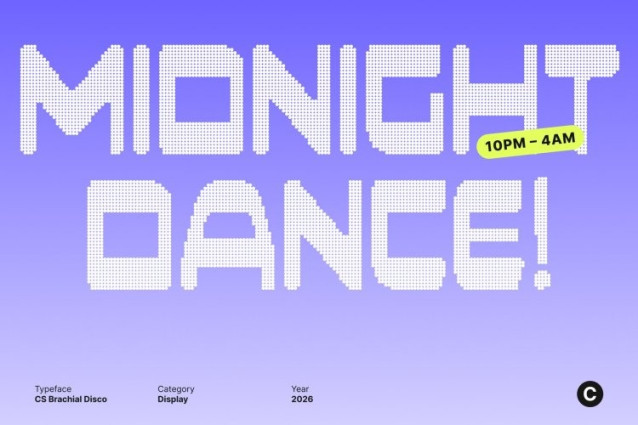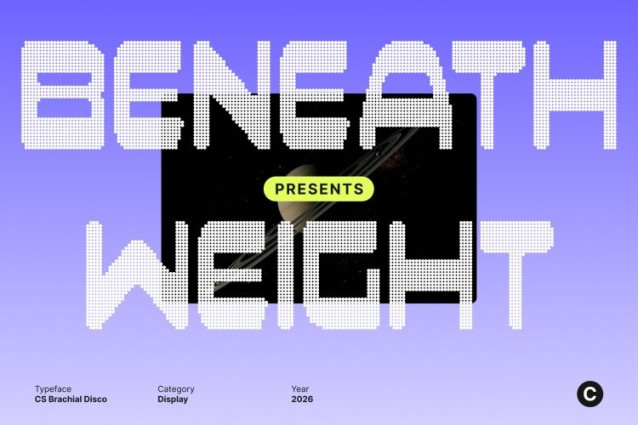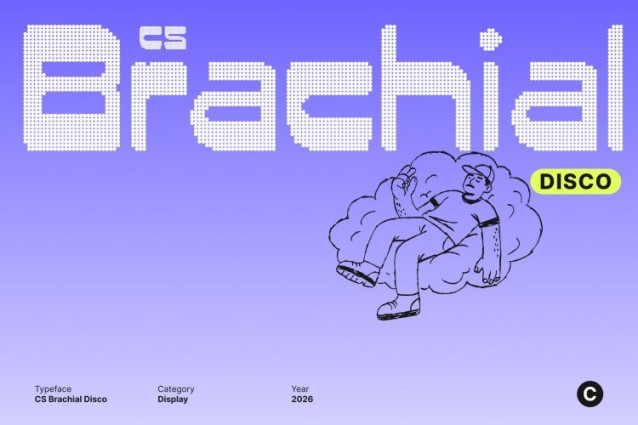
CS Brachial Disco Font
CS Brachial Disco Font This is an edgy futuristic sans serif font built for high-energy visuals and modern club culture. Featuring bold reverse contrast and sleek geometric construction, this typeface delivers a striking impact that feels experimental, digital, and ready for the spotlight. Every letterform is precisely crafted to balance sharp precision with expressive personality.
Dynamic Forms with Electric Rhythm
The distinctive reverse contrast flips traditional typographic expectations, creating a visually charged rhythm across each character. Sharp lines, compact proportions, and angular details evoke motion, sound waves, and pulsing lights capturing the intensity of techno beats and immersive nightlife environments.
Built for Bold Branding and Statement Visuals
This font thrives in logos, posters, event branding, album covers, and digital campaigns. Its assertive structure ensures clarity and impact across both print and screen, making it ideal for tech brands, electronic music visuals, creative studios, and futuristic party concepts.
Experimental Design with Disco-Futurist Energy
More than just a typeface, this font is a visual attitude. Its techno framework and daring contrast radiate confidence, innovation, and modern glamour. Use it to inject your designs with futuristic power, club-ready intensity, and bold visual energy.